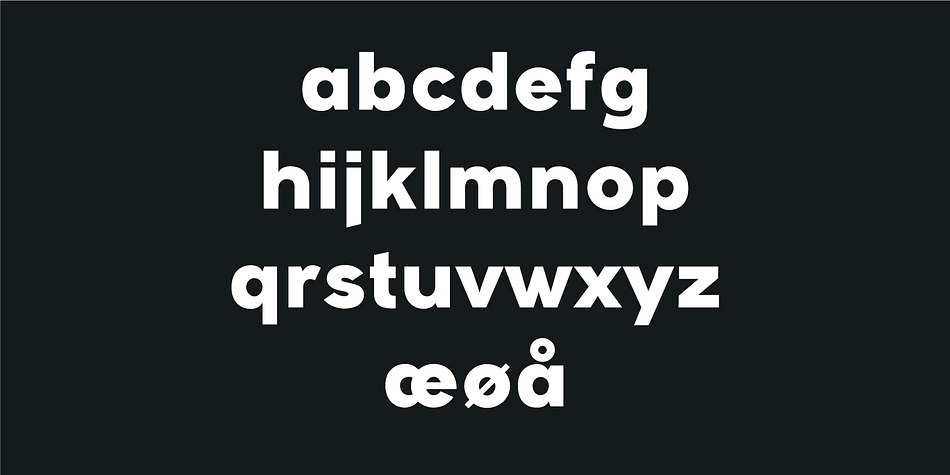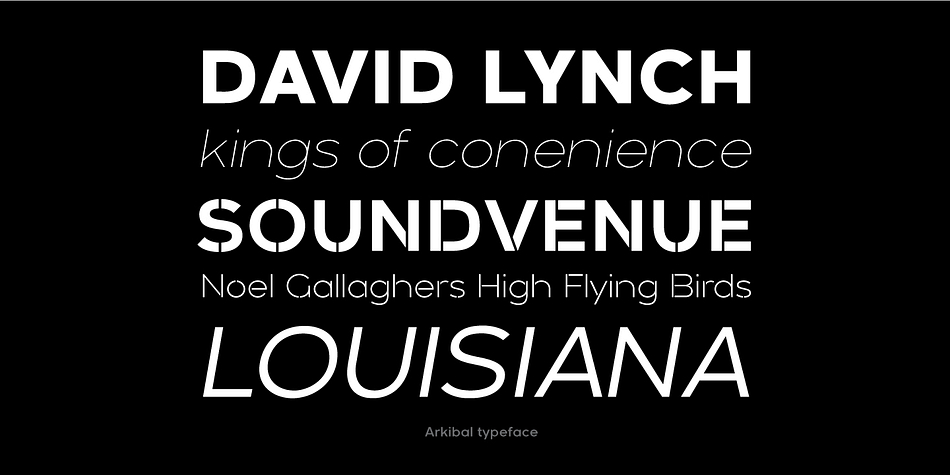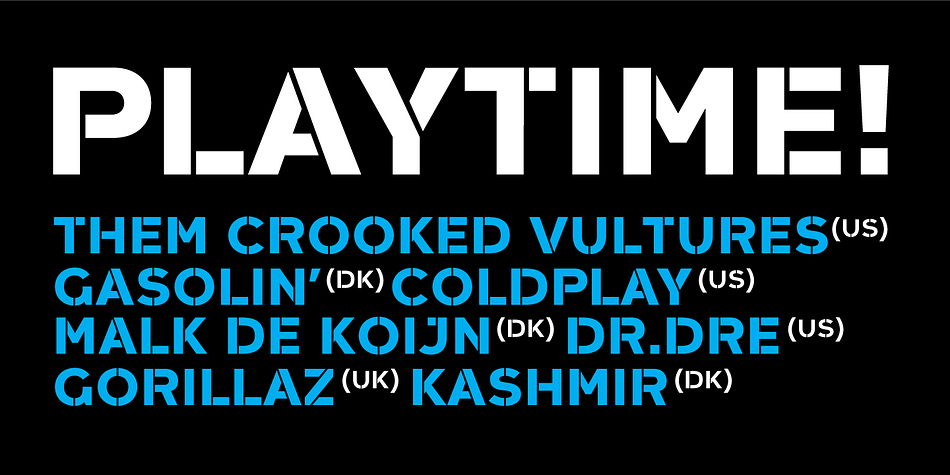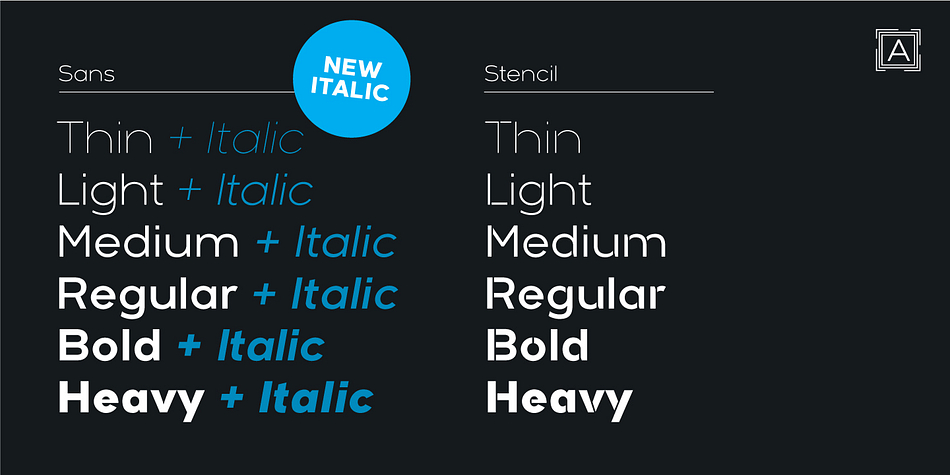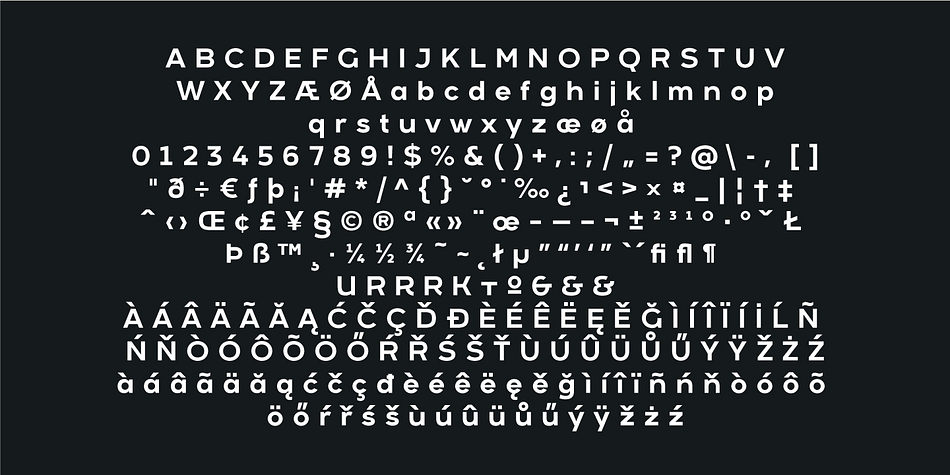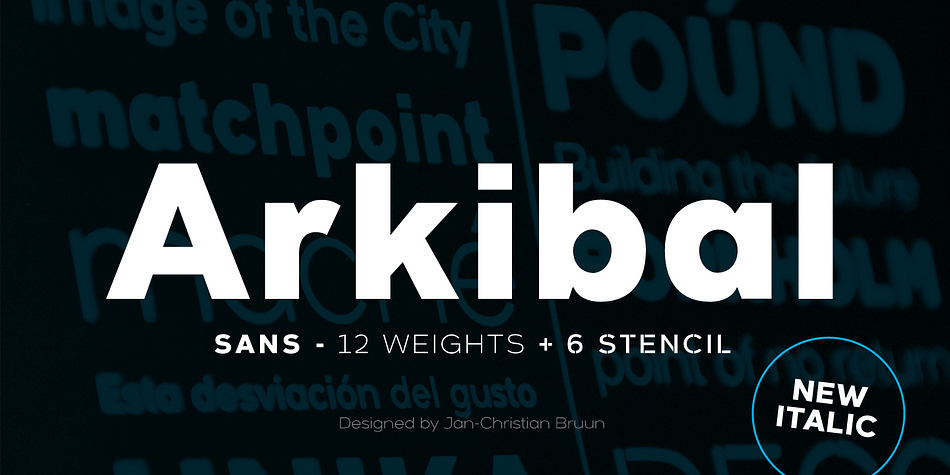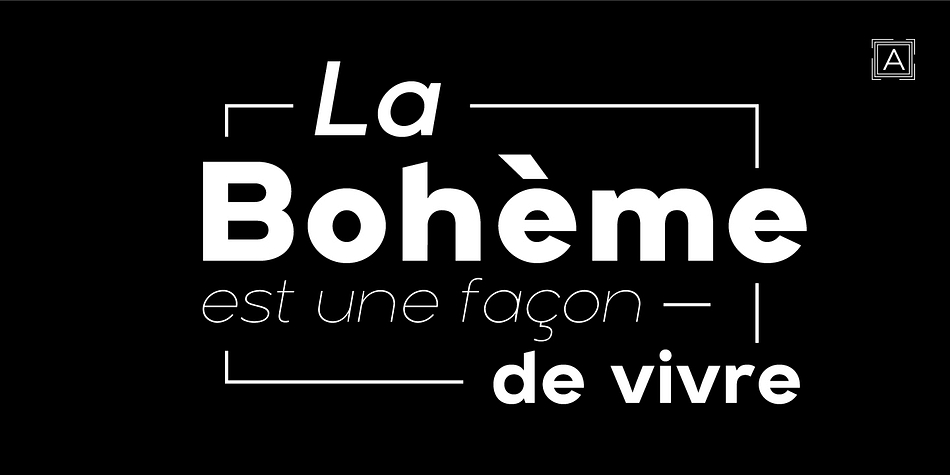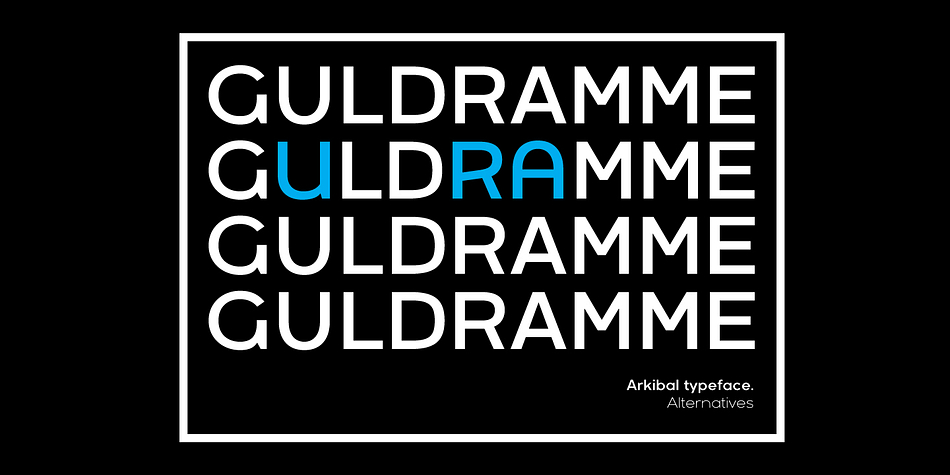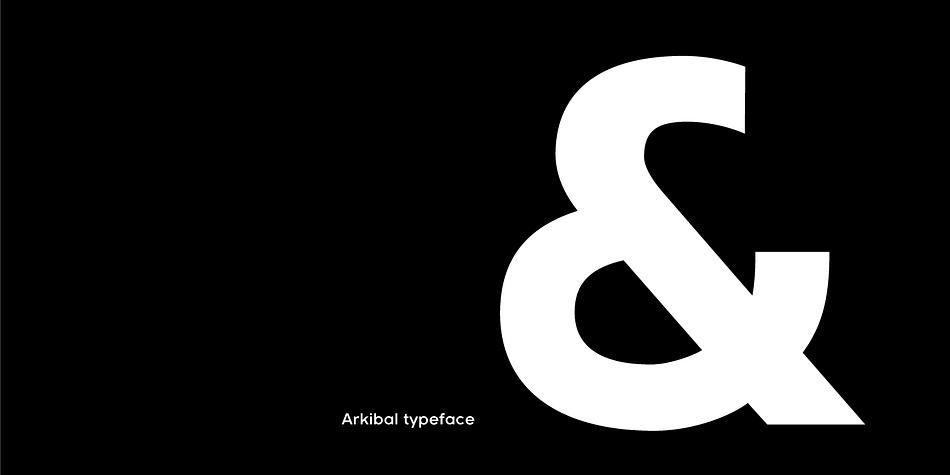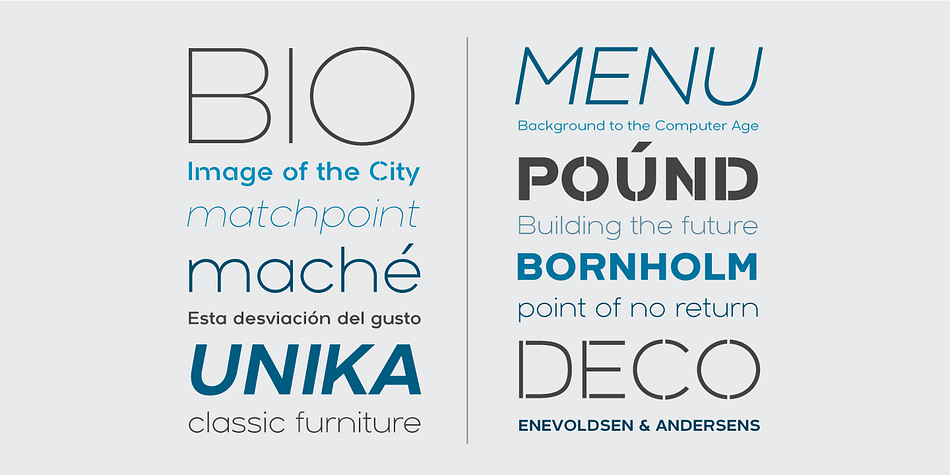
Designed by Jan-Christian Bruun, Arkibal is a sans serif and stencil font family. This typeface has eighteen styles and was published by JC Design Studio.
The inspiration comes from some old documents and store signs from my great-grandfather’s old gold list factory from 1838. He delivered hits for many artists of that time, and various museums in Copenhagen. I priority increases to make a mixture of the classic letter with a modern lift. And this contain also a serif og display version.
Seems it was interesting to try to reproduce some of the old characters and make a
new font. Uppercase G was the first letter of the starting point. G stands for in danish Guldramme, which means Goldframe. Arkibal is coming from an almost old danish tradional name “Arkibald”, only without “d”.